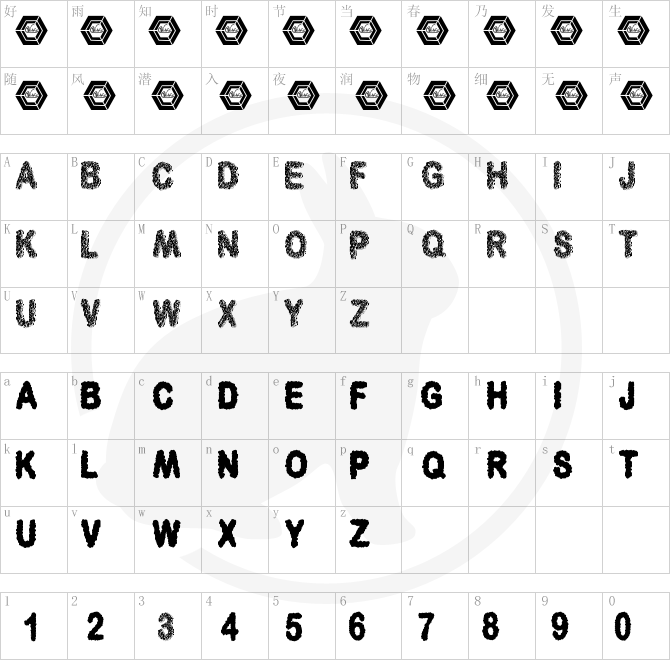
- Font Name:3D Cubes Solid
3D-Cubes-Solid.ttf is a very beautiful artistic font, 3D-Cubes-Solid.ttf is widely used in the design and printing of various books and pictures,3D-Cubes-Solid.ttf has a strong visual impact,3D-Cubes-Solid.ttf is a commonly used font in newspapers, magazines and books, and is used in posters, e-commerce Poster design, store design, logo design, font design and other fields.3D-Cubes-Solid.